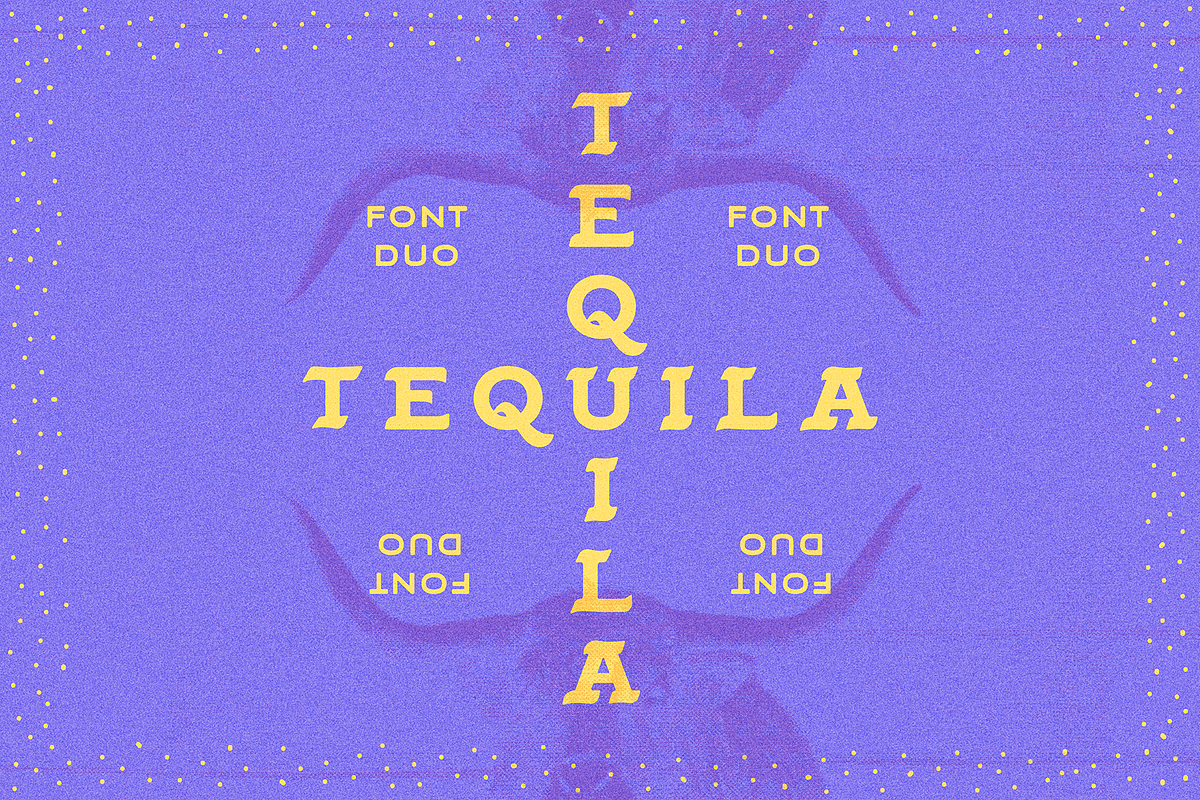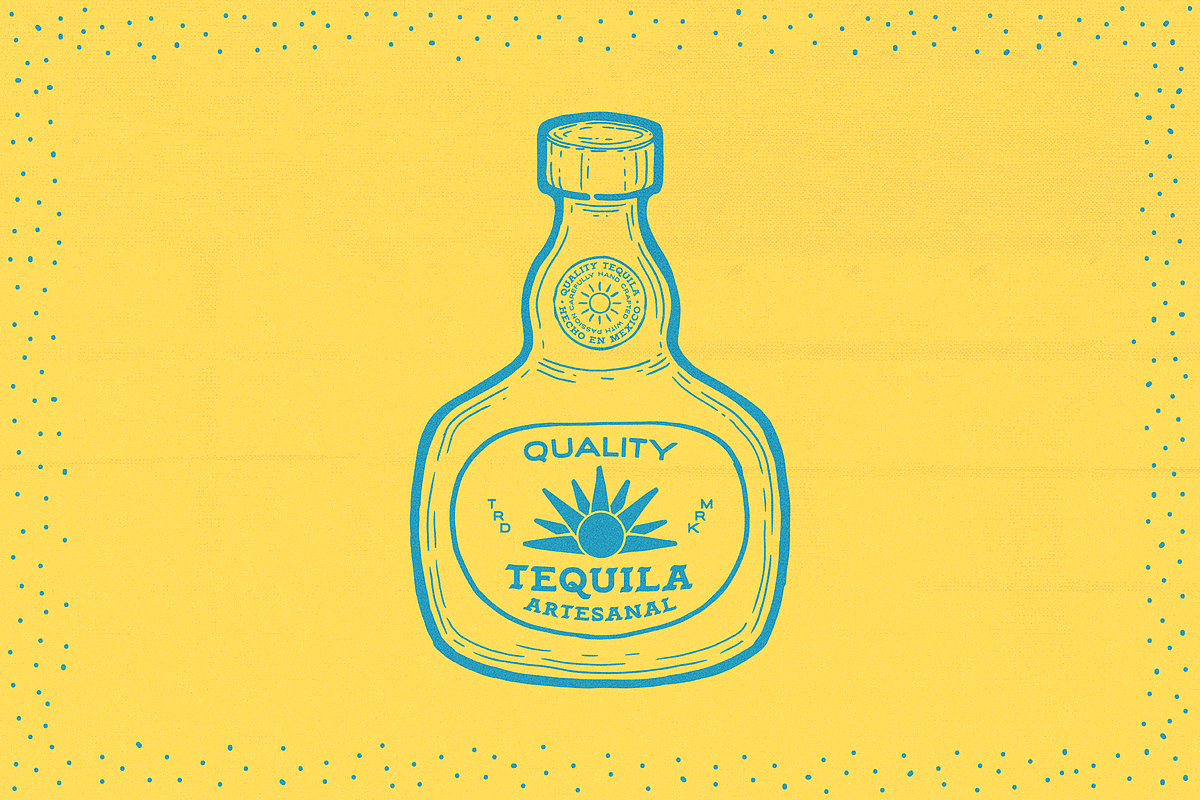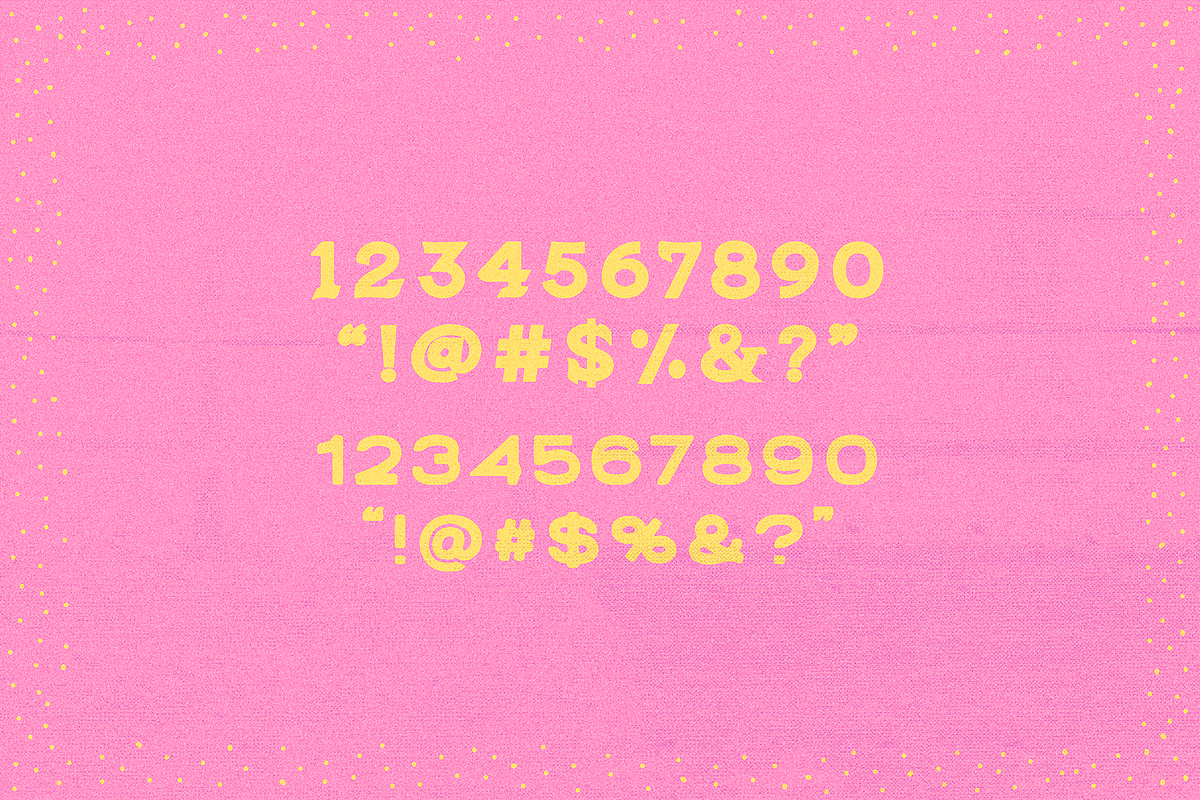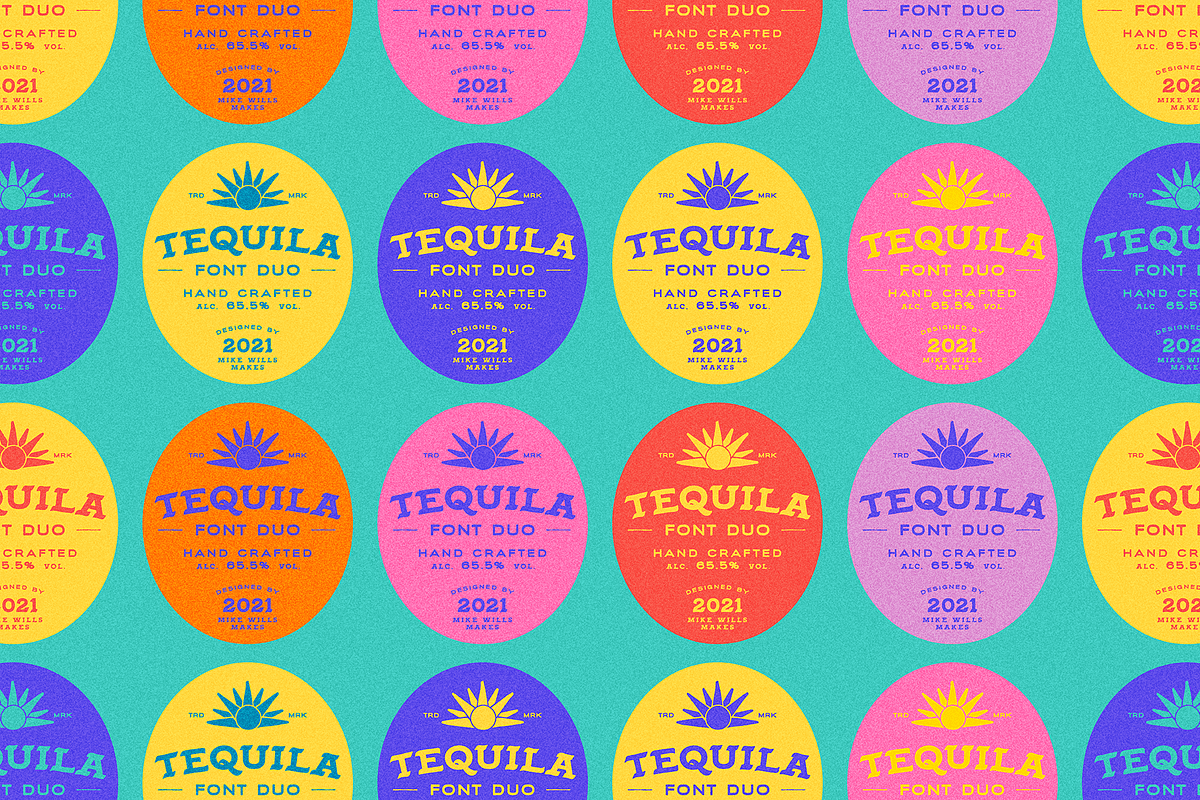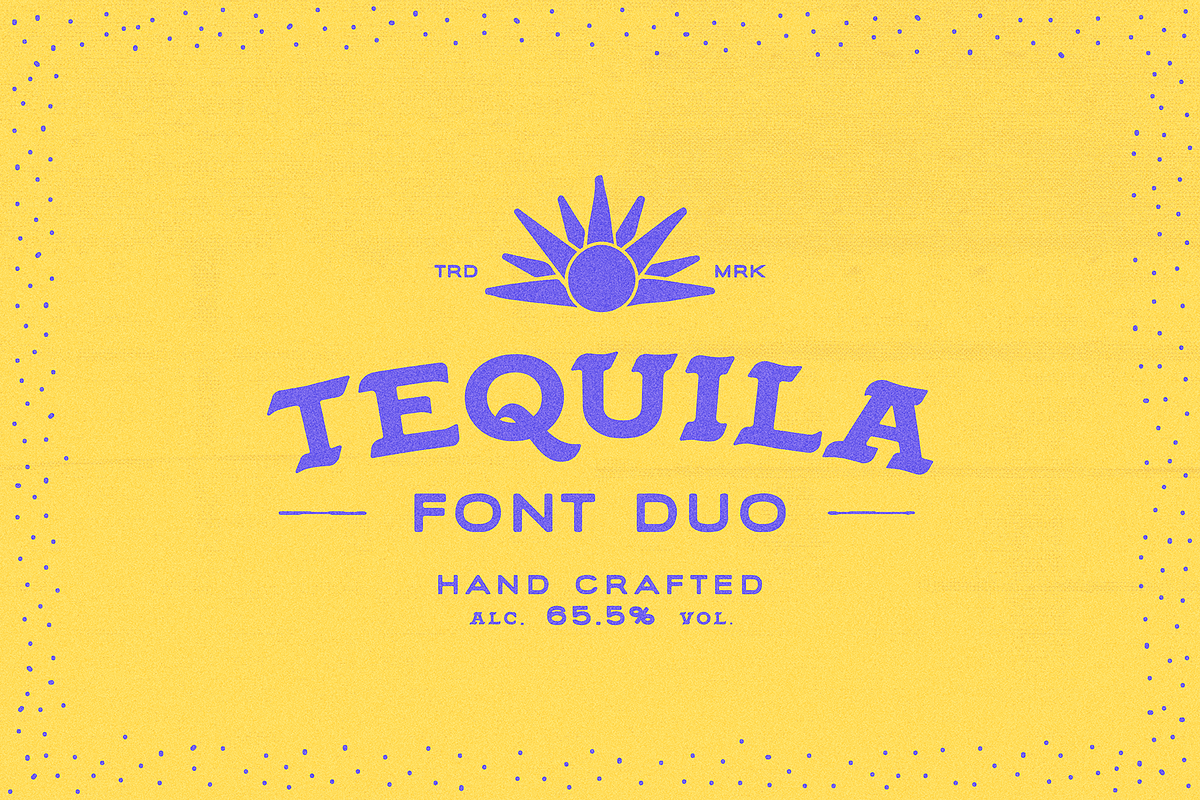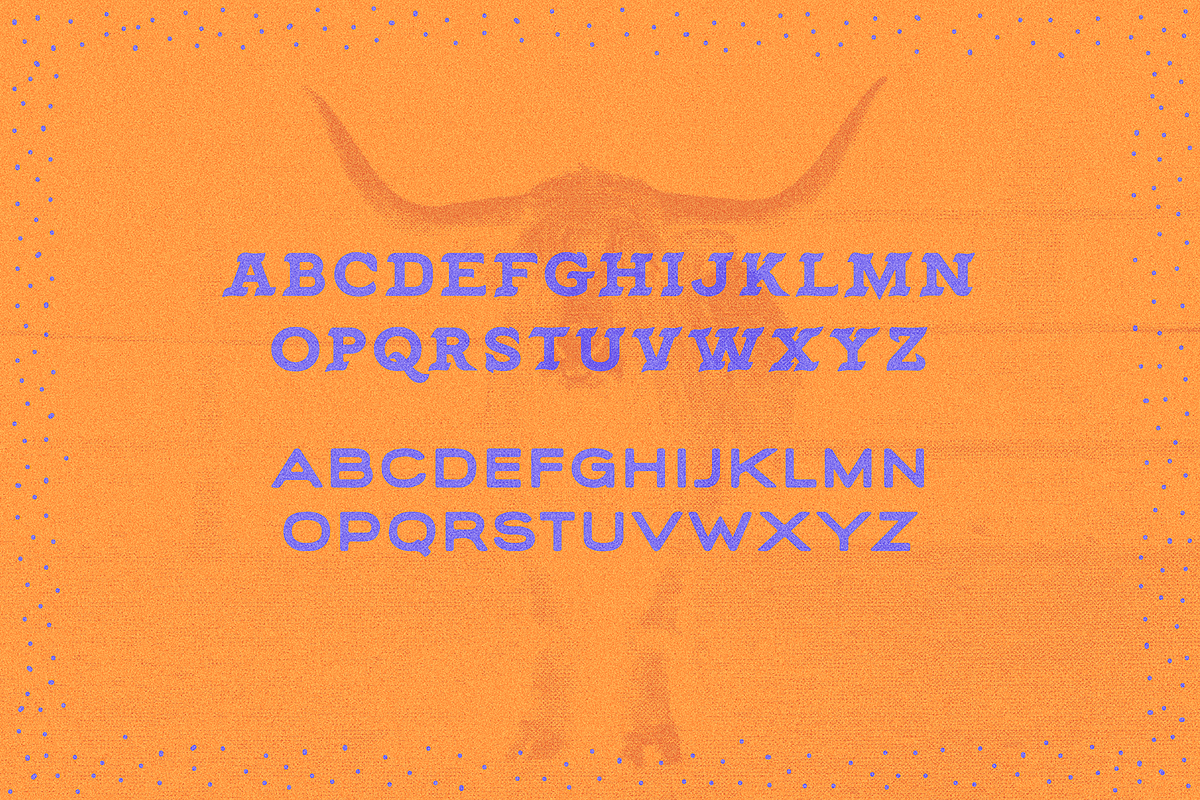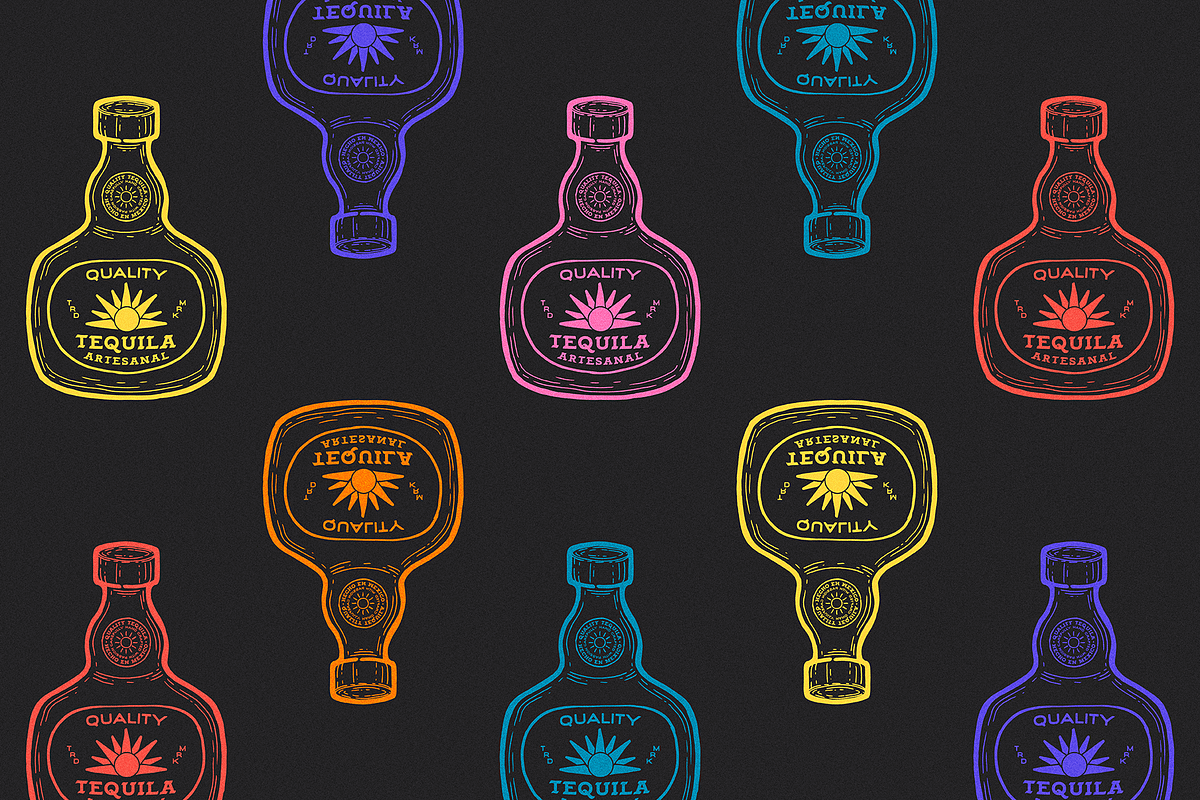
MWM Tequila Font Duo
This duo comprises of two hand display fonts. I designed MWM Tequila with retro liquor labels in mind and referenced old hand painted signs from Mexico for inspiration. MWM MA17-20 Ink is a font style borrowed from another typeface I previously made circa early 2020. I found the two fonts compliment each other so well that I needed to bundle them together.